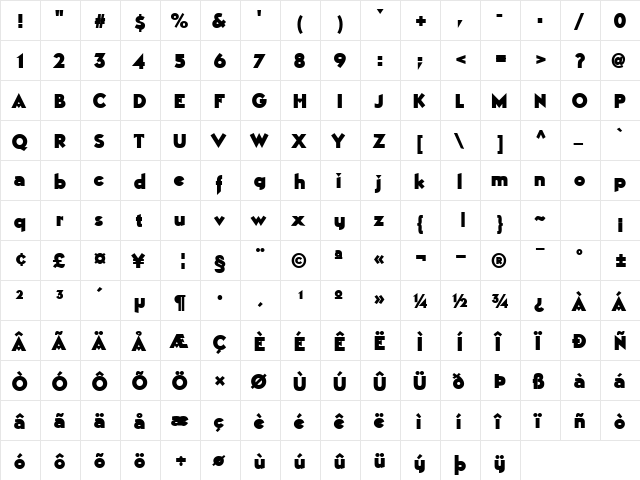
ZaucheSSK Bold
Design Context for ZaucheSSK Typeface
ZaucheSSK takes a measured approach to typography — its balanced proportions and neutral character make it a reliable workhorse for both digital and print work. Its bold stroke weight gives it real presence on the page.